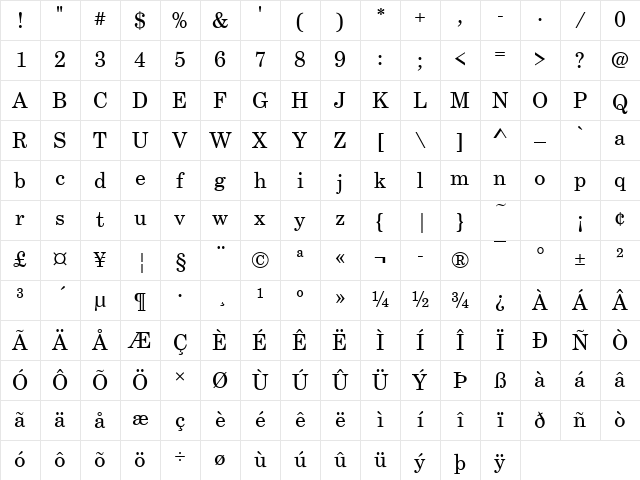
CenturySchT Regular
Complete CenturySchT Regular glyph index. Displaying only characters natively supported by CenturySchT Regular font.
Design Context for CenturySchT
CenturySchT is a composed and adaptable typeface that performs quietly and consistently across a wide range of design contexts.